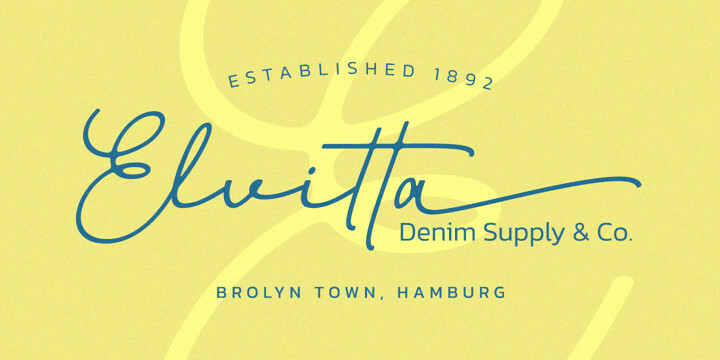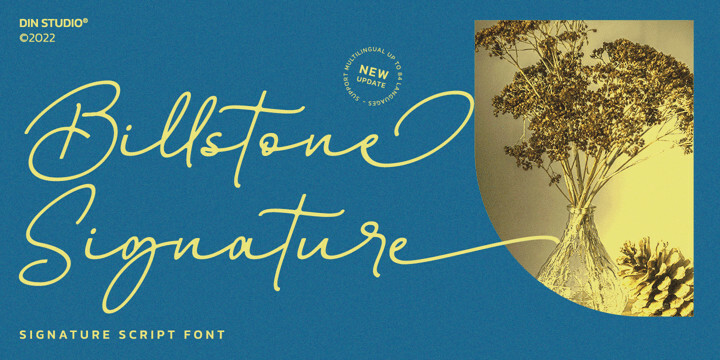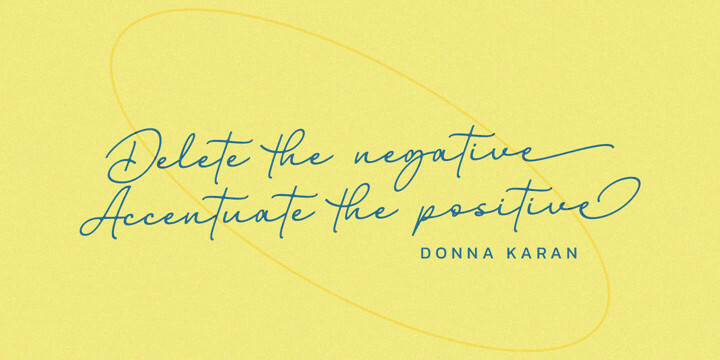
Billstone Signature Font
Billstone Signature FontBillstone Signatture is a soft and sweet signature typeface, with characters dancing along the baseline. Designed primarily as a captivating font that has a casual and elegant touch. Can be used for various purposes such as logos, wedding invitations, headings, t-shirts, letterheads, signage, labels, news, posters, badges etc.